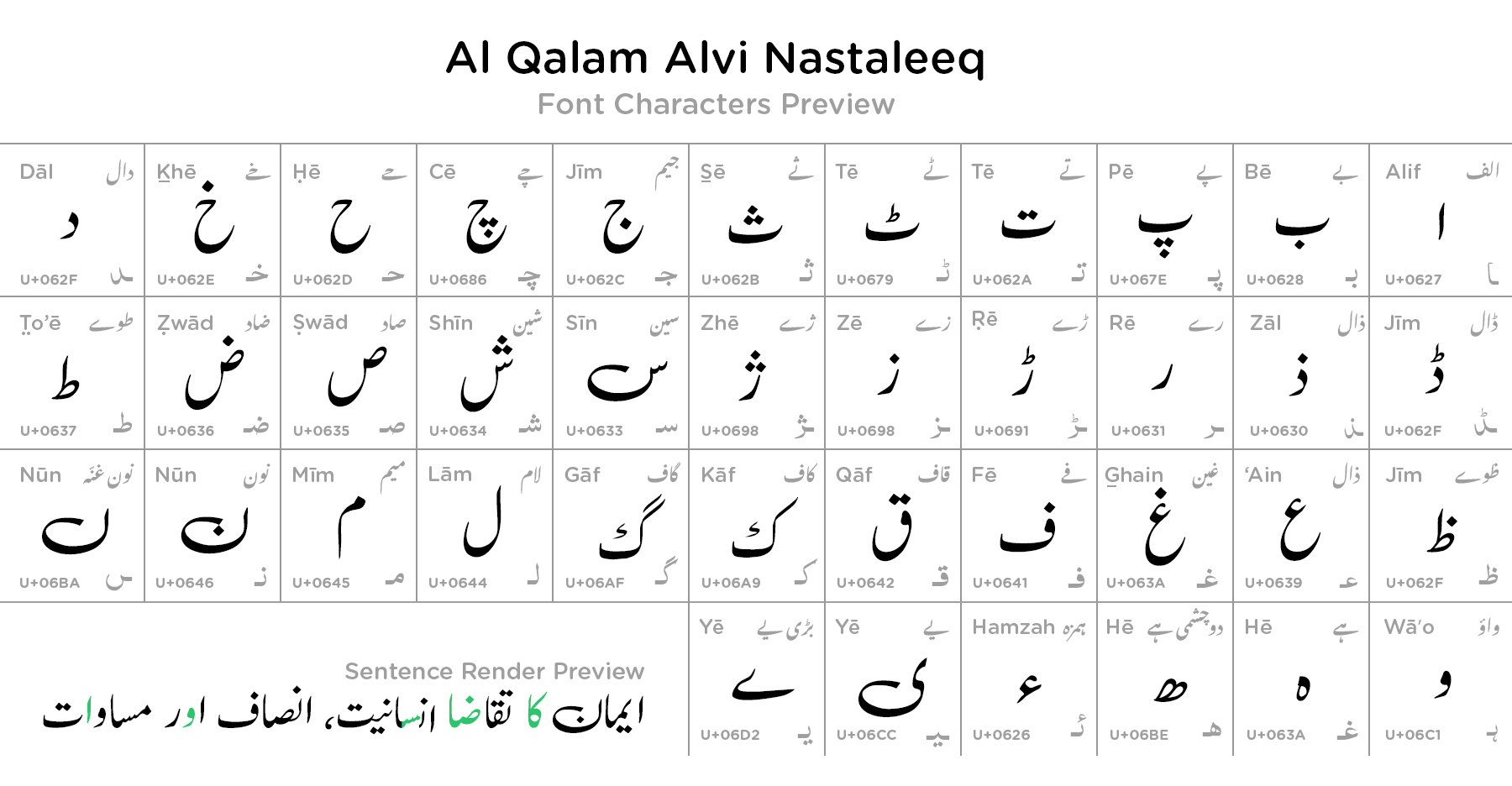
Al Qalam Alvi Nastaleeq, designed by Amjad Hussain Alvi and Shakir ul Qadree, is a Qalam writing Urdu font released on November 18, 2020. Inspired by the Naskh and Nastaliq scripts, it expresses grace with even spacing, rounded corners, and slightly cursive edges. Featuring 253 characters and an impressive 16,982 glyphs, the font is highly adaptable for different design purposes. Moreover, it supports Arabic, Latin, Greek, and Urdu, providing extensive language support for diverse design projects. With a moderate thickness and contrasting strokes similar to those made by a Qalam, the font delivers impactful typography. Its formal appearance is accentuated by slightly cursive ends and wide elongated terminals, enhanced by small zero spaces.